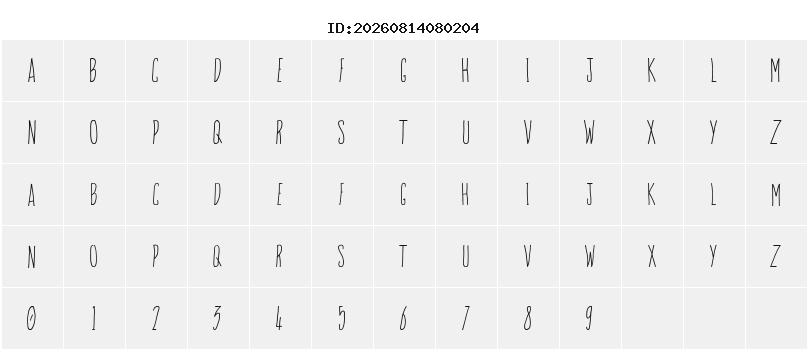
• Font Name: Sun & Rain
• Font ID: BonezDesignz-FieClarke: Sun&Rain : 2015
• Full Font Name: Sun&Rain
• PostScript Name: Sun&Rain
• Character Count: 86
• Designer: Bonez Designz - Fie Clarke
• Manufacturer: Bonez Designz - Fie Clarke
About Sun & Rain.ttf
Sun & Rain.ttf is a modern, elegant sans-serif font designed for ultimate readability and visual harmony. Perfect for branding, headlines, web design, and print materials.